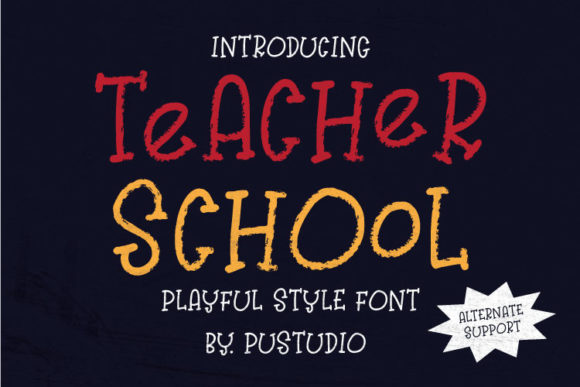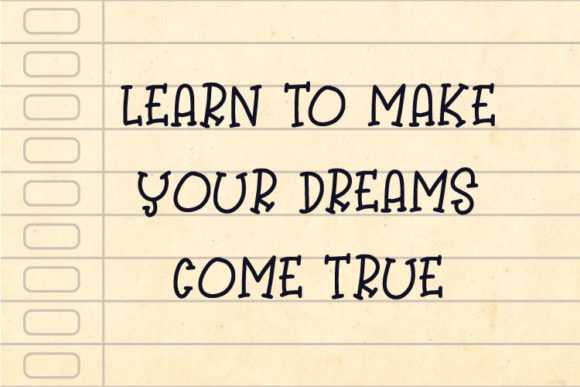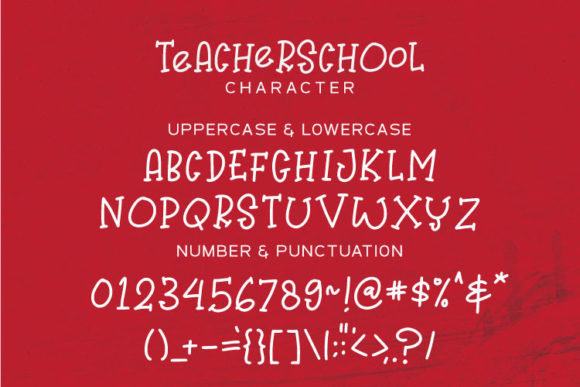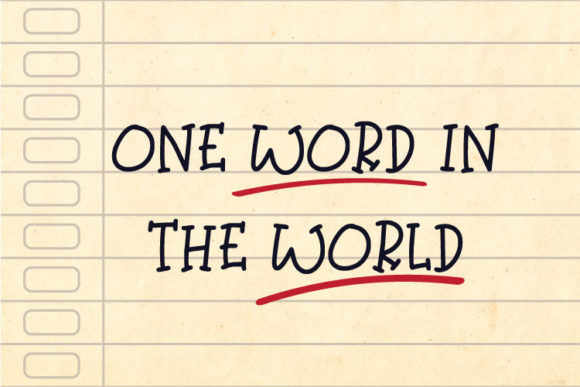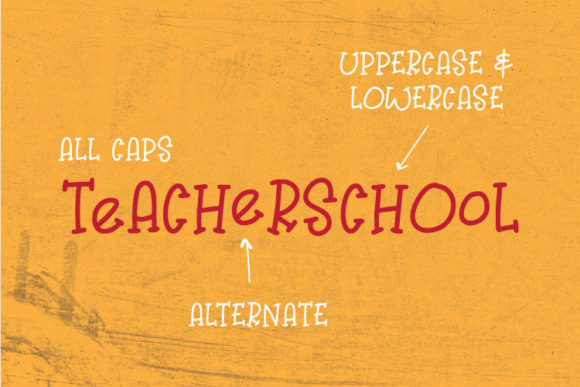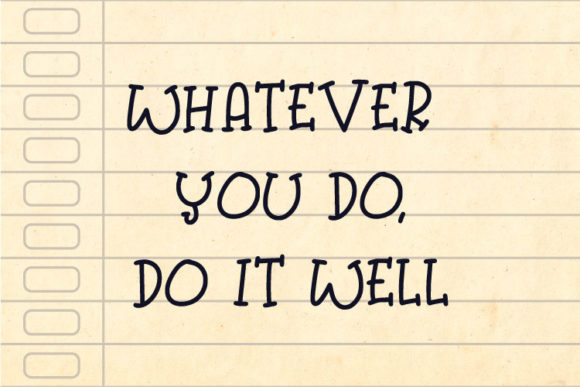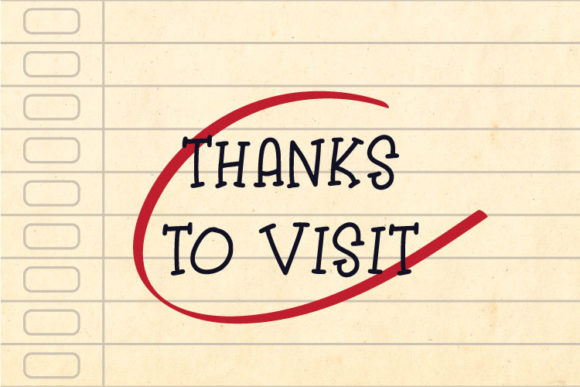
Teacher School Font
About Teacher School Font
Teacher School is a fun, quirky and childish handwritten font, that can be used for all chalkboard quotes or teaching material! Its authentic look and feel will add a personal and realistic feel to your designs.